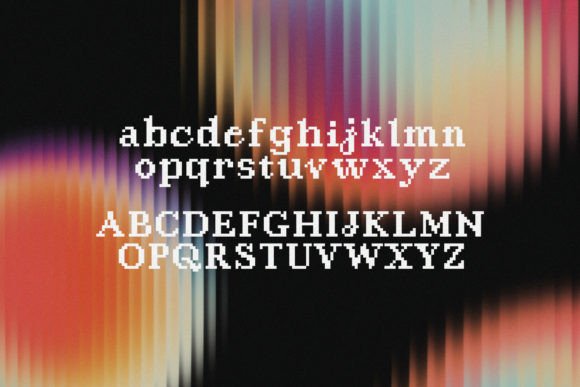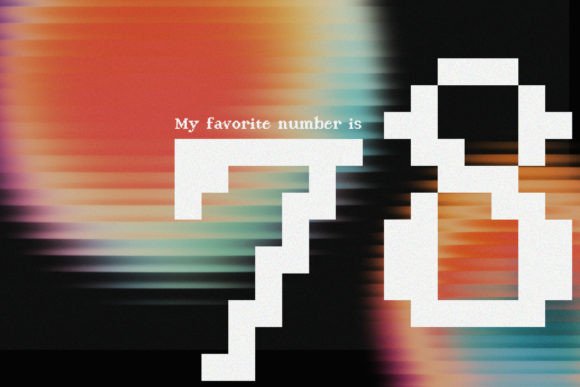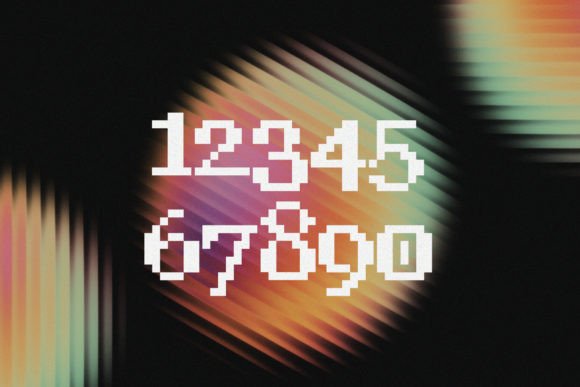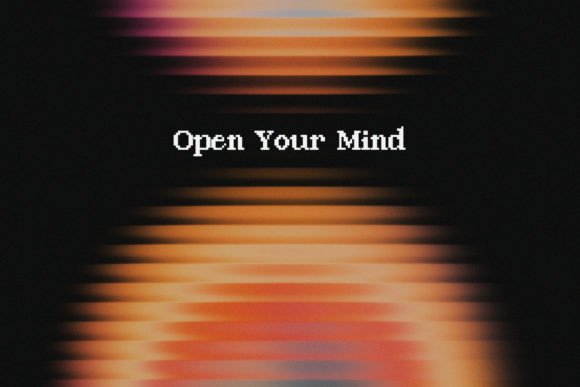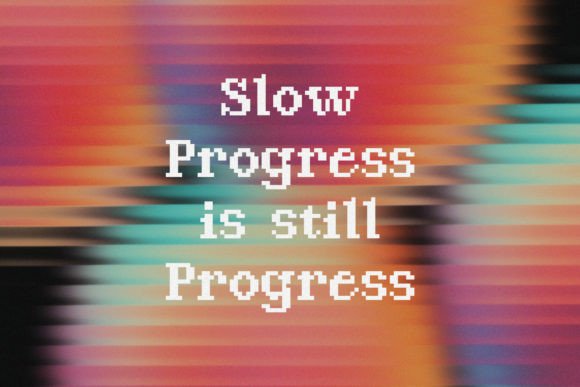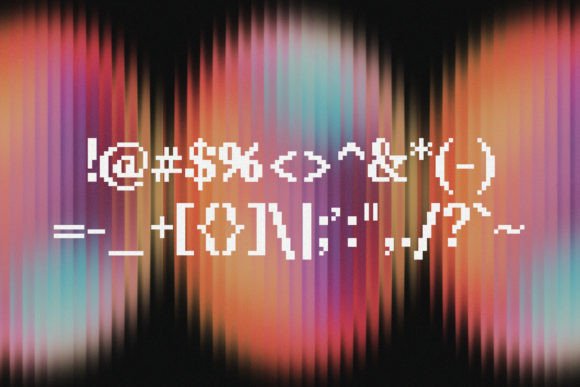
Introduction to Retro Byte Font Font
Fonts play a crucial role in design, and the Retro Byte Font font is a typeface that brings both character and versatility to any project. Whether you’re working on a branding project, a website, or a print design, the Retro Byte Font font offers a unique style that can elevate your work.
Introducing Retro Byte: the perfect fusion of vintage charm and contemporary precision.
This beautifully crafted modern pixel font is your go-to choice for adding a touch of nostalgic flair to your design projects Inspired by the iconic aesthetics of early computer graphics, Retro Byte combines crisp, clean lines with a meticulously modern twist, making it versatile and ideal for a wide range of applications.
Key Features of Retro Byte Font Font
Why Choose Retro Byte Font Font?
The Retro Byte Font font is more than just a typeface – it’s a design tool that helps you communicate your message with style and clarity. Its unique character set and versatile design make it suitable for a wide range of applications, from elegant invitations to bold headlines.
With its carefully crafted letterforms and balanced proportions, the Retro Byte Font font ensures readability and visual appeal across all mediums.
What makes Retro Byte Font font special?
The Retro Byte Font font stands out with its unique design, exceptional readability, and versatility across various design applications.